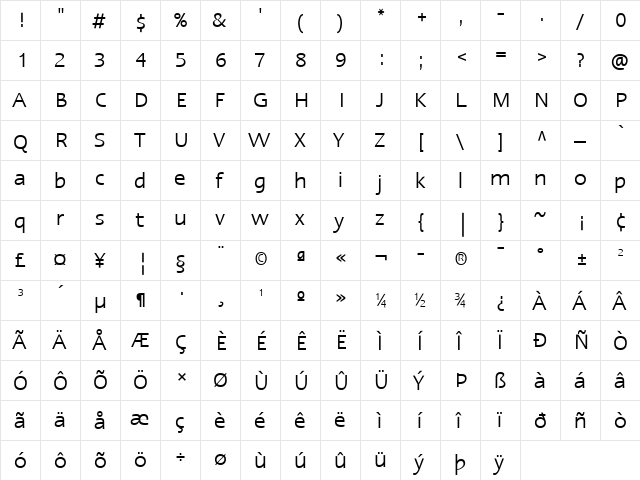
LTErgo Regular
Design Context for LTErgo Typeface
LTErgo offers clean, dependable letterforms without strong stylistic allegiance, making it a practical choice for designers who need flexibility.